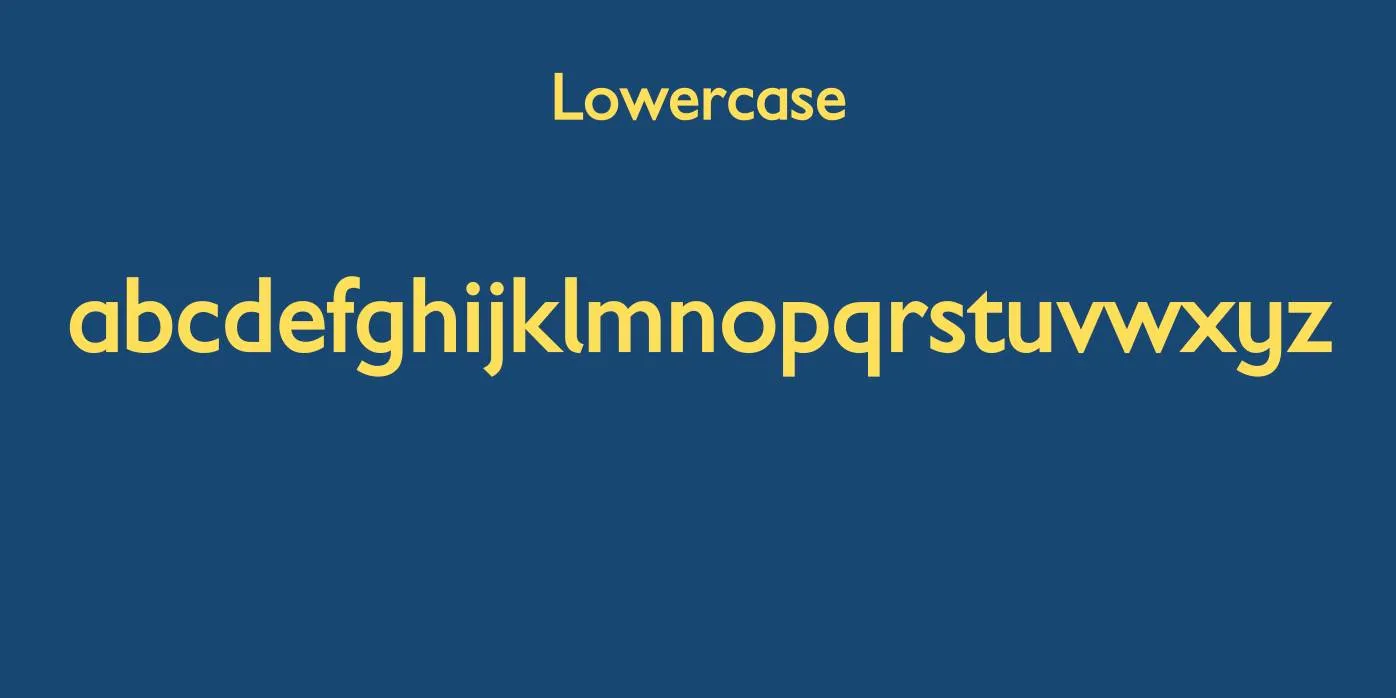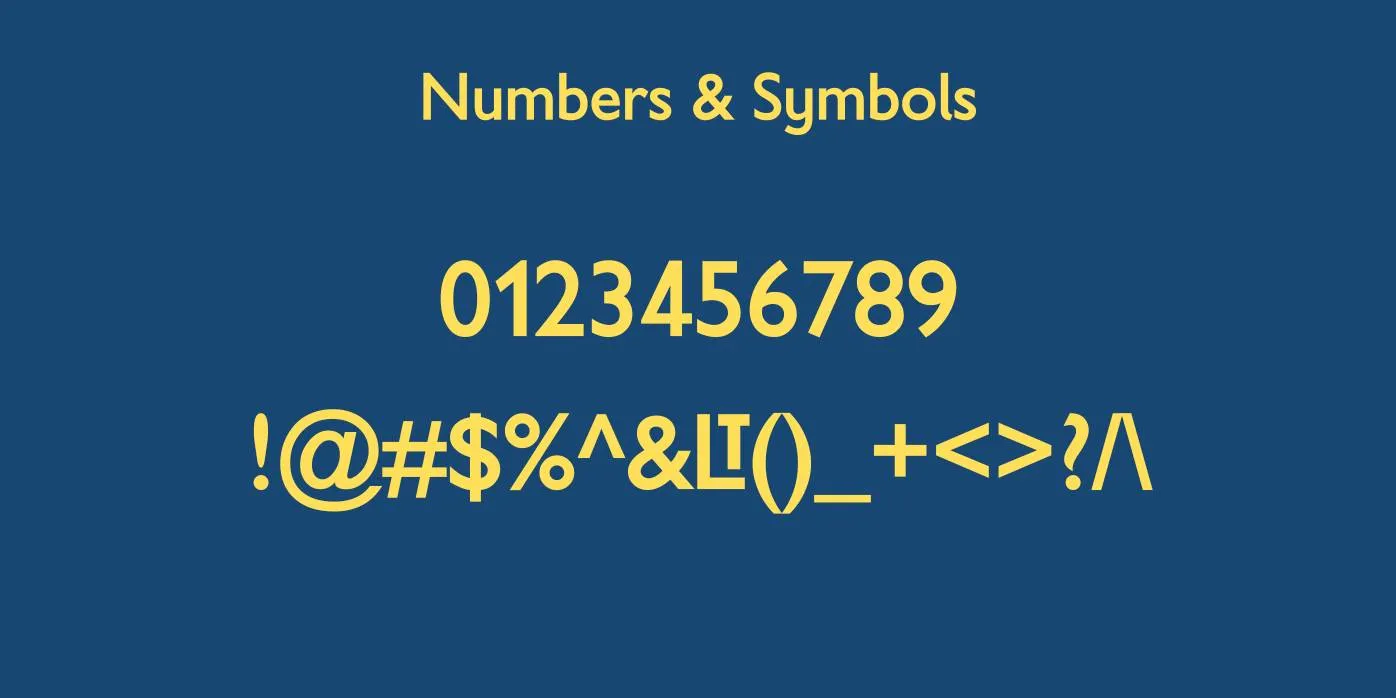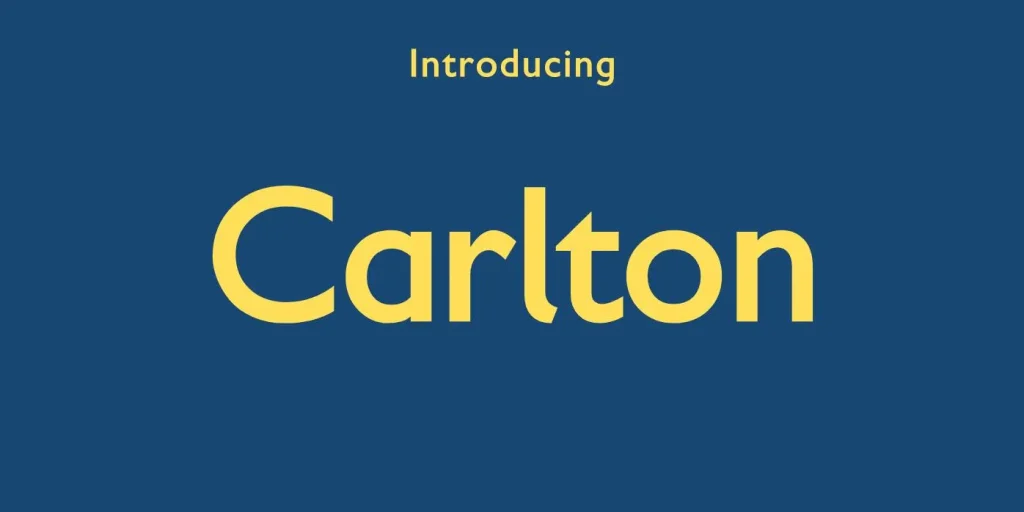
Carlton Logo Font is a Sans-Serif font that was designed by Pixel Sagas. This font arises in TTF and OTF formats along with an open font license for all types of projects.
This typeface comes in Regular weight and it has geometrical and smooth shapes of characters in large and small letters, numbers, punctuations, symbols, signs, alternates, accents, and special characters.
Characters View Of Carlton Logo Font
What Original Font Is Used In Carlton Logo?
The original font used for its logo is Gill Sans Font which belongs to the humanistic Sans-Serif font and was formed by Eric Gill and released by the Monotype Corporation. This font is a family of 15 different fonts and stunning glyphs that make it perfect for high-quality projects and displays.
Various Ways To Use Carlton Logo Font In Your Design
This font style is a brilliant choice for all sorts of design projects like titles, logos, signage, printing, publicity, marketing materials, branding, promotional videos, book covers, themes, magazines, online ads, and a lot more.
This font works well in both digital and printing displays, this font style is a bright selection for the making of websites, scripts, documentation, graphics, slips, header and footers, brochures, flyers, outlets, statement writing, and much more.
Whether you are a designer or just started your design career, you can use this font in all of your designs and make them legible and impactful. If you need a font for a professional logo, shop name, official document, or book title then you can use this graceful writing style in your projects for an attractive, elegant, and remarkable appearance.
Pairing Suggestions For Carlton Logo Font
You can couple this font with other Sans-Serif typefaces and get more smooth, amazing, legible yet contemporary, and attention-seeking results. Some pairing choices are the following.
What type of font is Carlton Logo Font?
This typeface is a Sans-Serif font that was designed by an unknown designer. This font arises in TTF and OTF formats along with an open font license.
Is there any alternative to Carlton Logo typeface on Google Fonts?
Which font goes well with Carlton Logo Font?